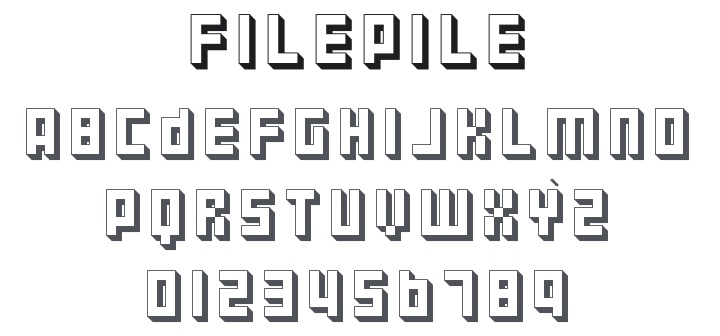
Filepile Font
About Filepile
Filepile is a bold, chunky 3D block display typeface where every letter has a thick shadow effect that creates a strong sense of depth and solidity — like letters stacked and piled on top of each other. Its geometric, arcade-game character radiates retro-gaming energy. Perfect for video game titles, event posters, logos, and any headline needing maximum visual weight and punchy impact.